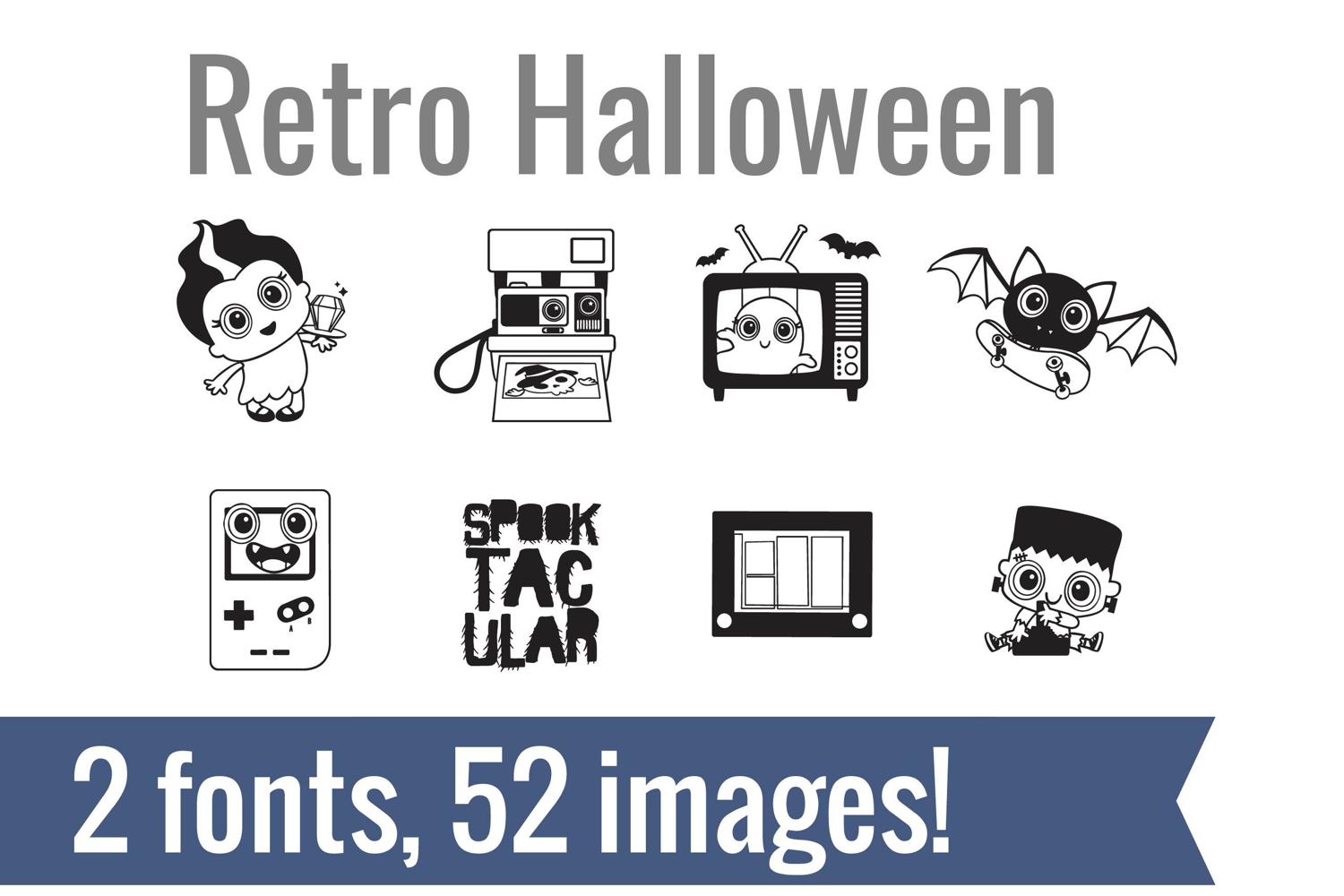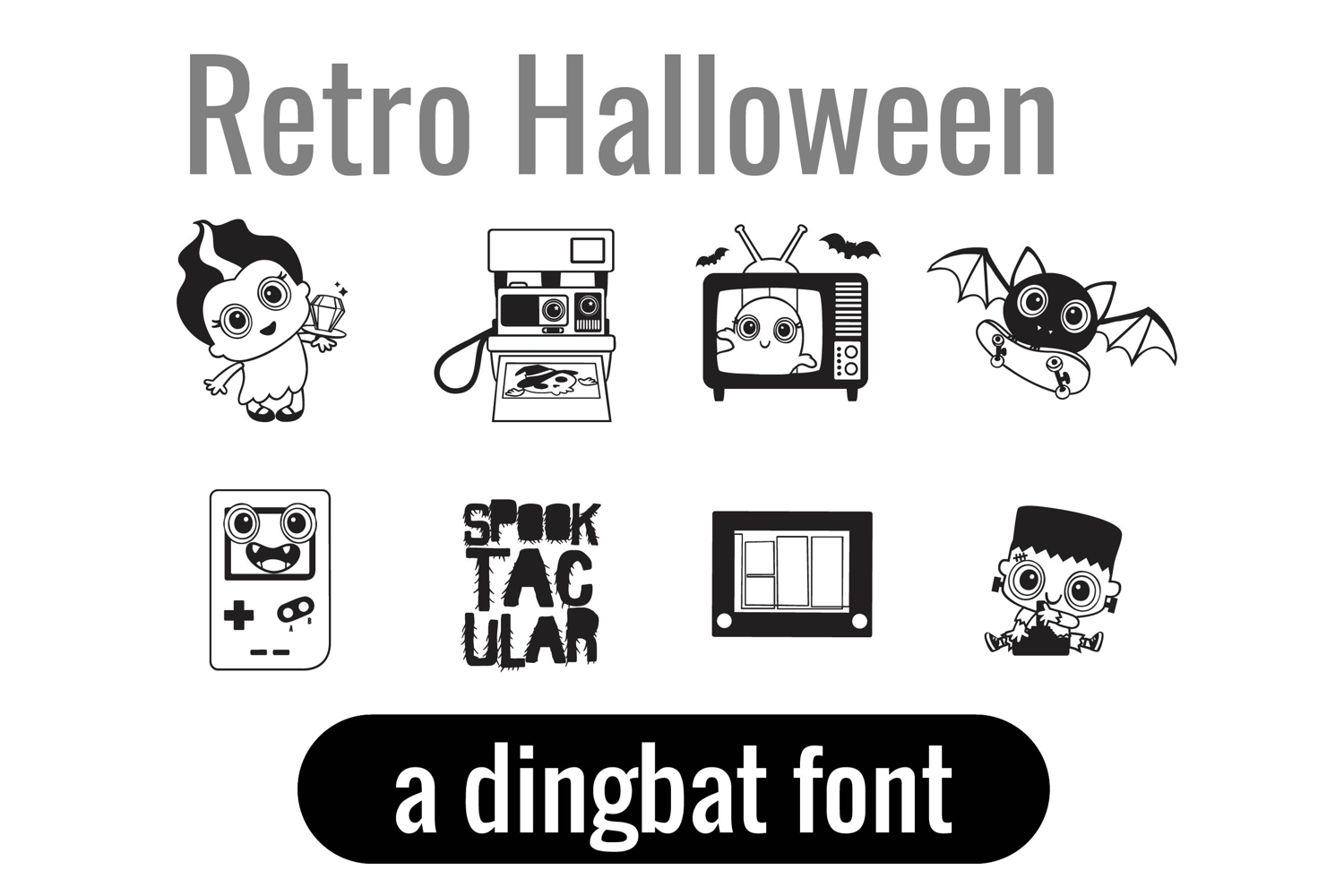
Retro Halloween Dingbats
Unlock endless creativity with two perfectly coordinated fonts! There are two dingbat fonts in this bundle, both featuring retro elements combined with adorable monsters.
Tired of spending hours searching for the perfect icons and graphics? Our dingbat fonts put dozens of cohesive, scalable designs at your fingertips. Simply install the font and type a letter to produce a pre-made image. From charming seasonal icons for holiday cards to intricate frames for your invitations, these fonts let you create stunning designs for vinyl cutting, paper crafts, planners, and more.